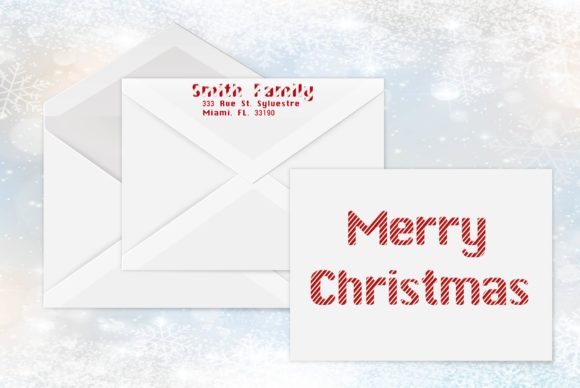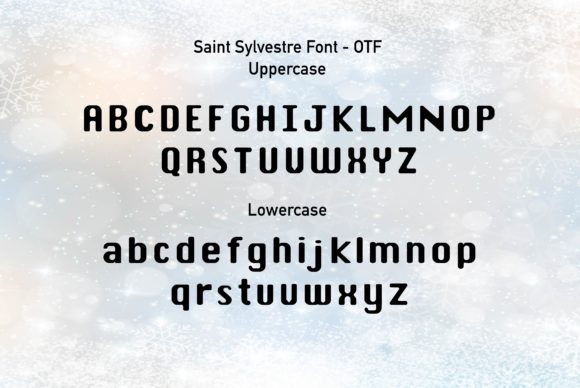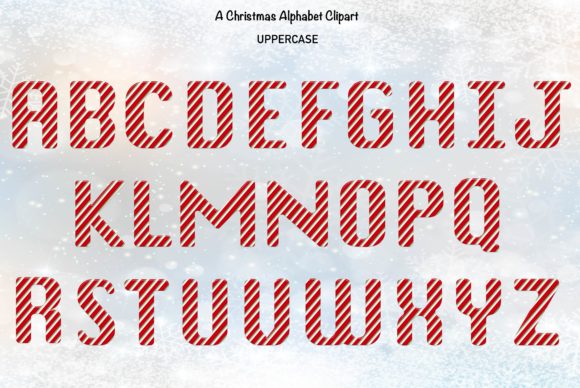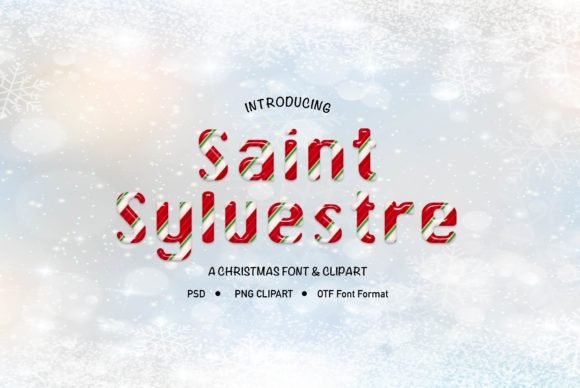
Introduction to Saint Sylvestre Font
Saint Sylvestre is a friendly, fresh, rich, and joyful decorative font.
It is ideal for holiday-themed greeting cards and for any crafting project that requires a Christmas related touch .